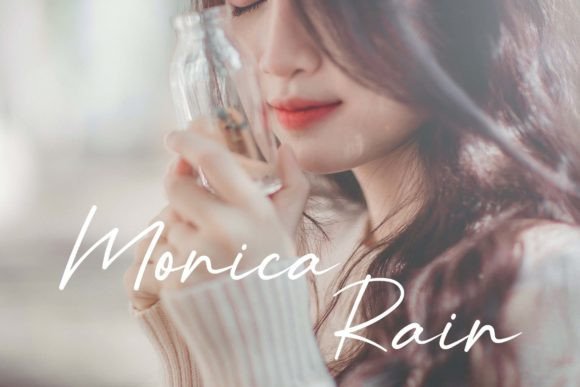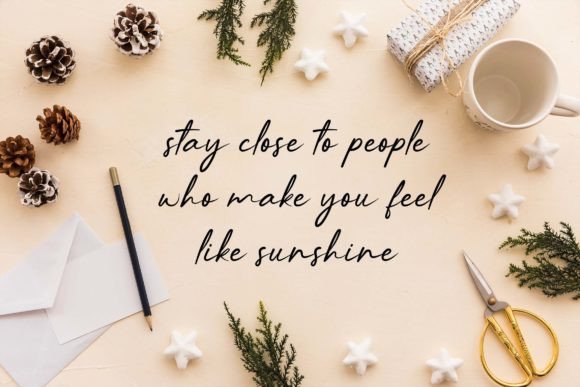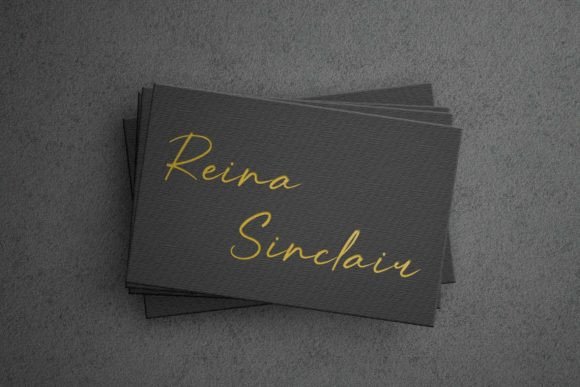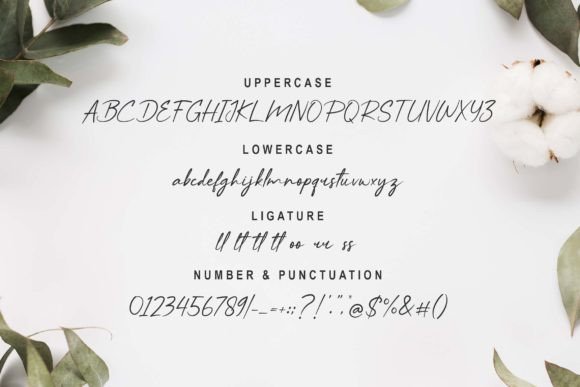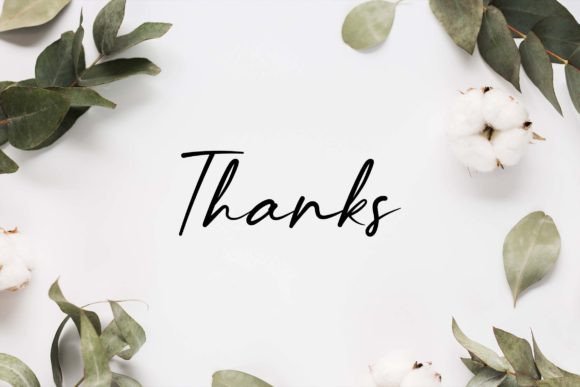
Introduction to Samsudin Font
Remember the thrill of brainstorming for your next creative project? You’re stuck on the perfect design, but nothing seems to capture the essence of your vision. That’s where the right font can make all the difference. Imagine having a font that transports you back to a bygone era, yet feels refreshingly modern. Welcome to the world of Samsudin Font, a handwritten script font that’s about to become your new design BFF.
As a designer, you know how crucial it is to have a high-quality design resource that can elevate your work to the next level. That’s exactly what the Samsudin Font offers – a unique blend of authenticity and sophistication that’s sure to impress. Whether you’re creating posters, logos, stickers, or invitation cards, this font is perfect for adding that extra oomph to your design.
Key Features of Samsudin Font
- Unique, modern design with a transparent background
- Character set includes a wide range of alphabets and symbols
Honest Review: Samsudin Font
- ✨ High-quality font with a wide range of characters and symbols.
- ✨ Can be easily used for both digital and print media.
However, I do have a few reservations:
- ⚠️ Limited font size options, which may require additional styling.
- ⚠️ Not suitable for complex, multi-line text.
Samsudin Font
Overview
Samsudin Font is a high-quality design resource that can elevate your creative project. This font is perfect for designers and artists looking for a unique and stylish element to add to their work.
Tips for Getting the Most Out of Samsudin Font
Here are some tips to get the most out of Samsudin Font:
Use it with a transparent background to create a stunning visual effect.
Experiment with different font sizes and styles to create a unique look.
Combine Samsudin Font with other design elements to create a cohesive and visually appealing design.
Samsudin Font is commonly used in:
Logo design
Brochure design
Infographic design
Poster design